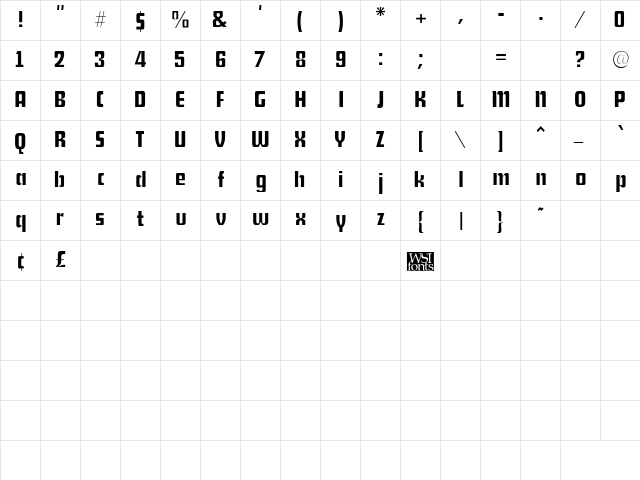
Shylock Regular Font Preview
Shylock Regular
Design Context for Shylock Typeface
Shylock offers clean, dependable letterforms without strong stylistic allegiance, making it a practical choice for designers who need flexibility.